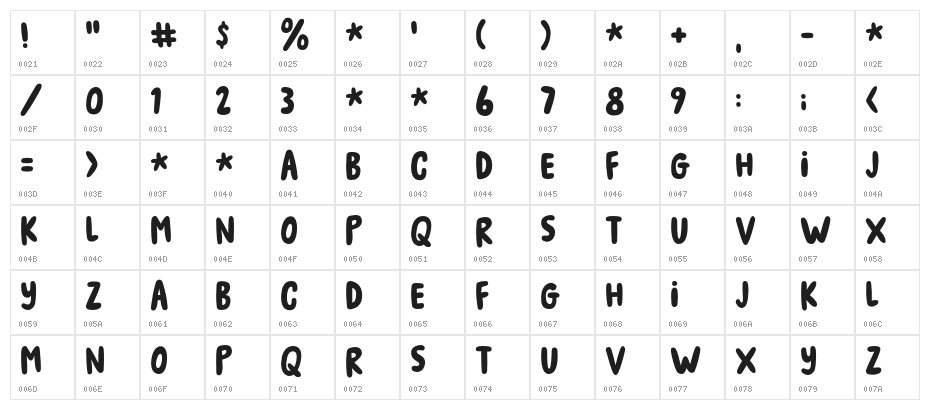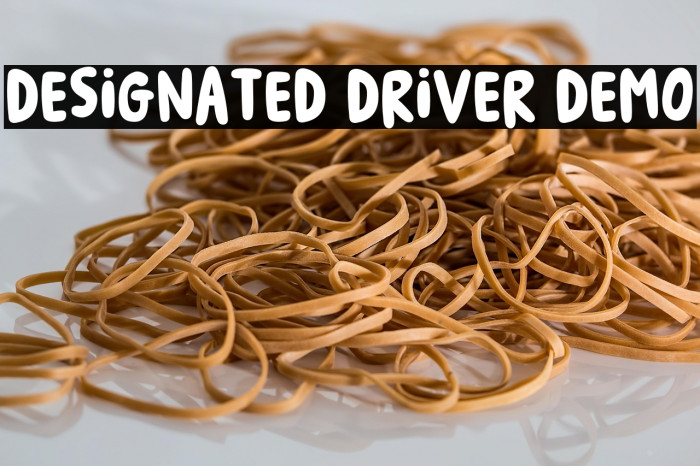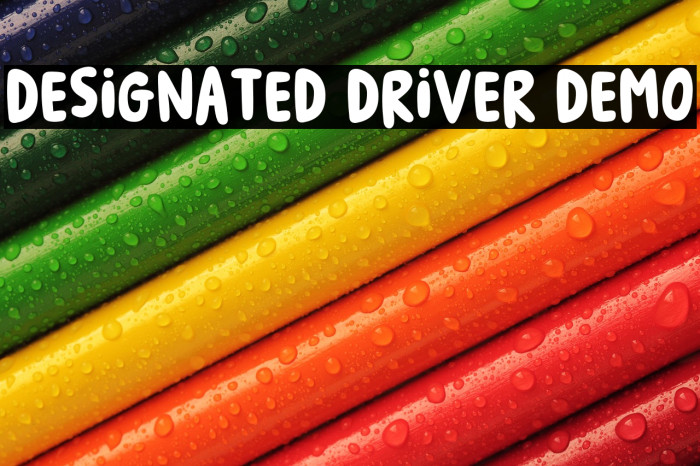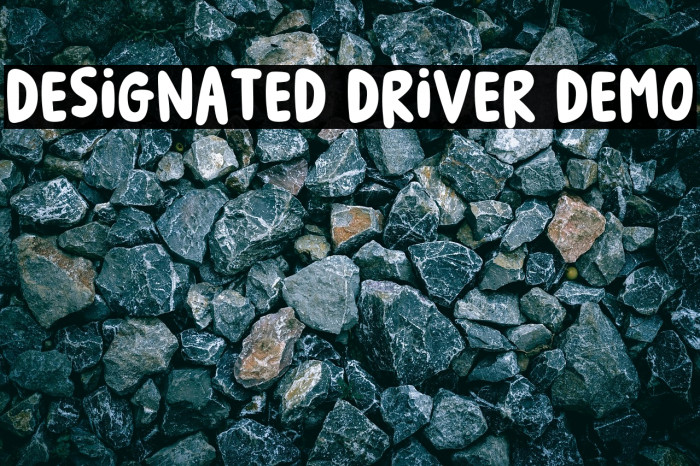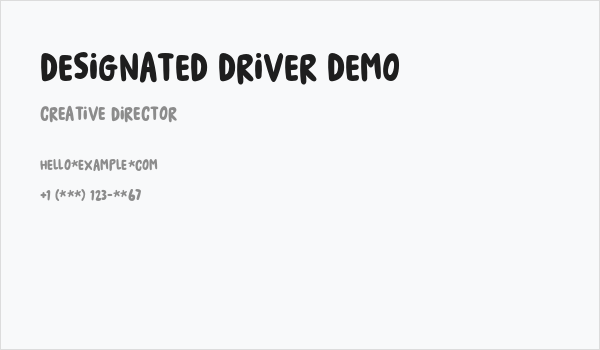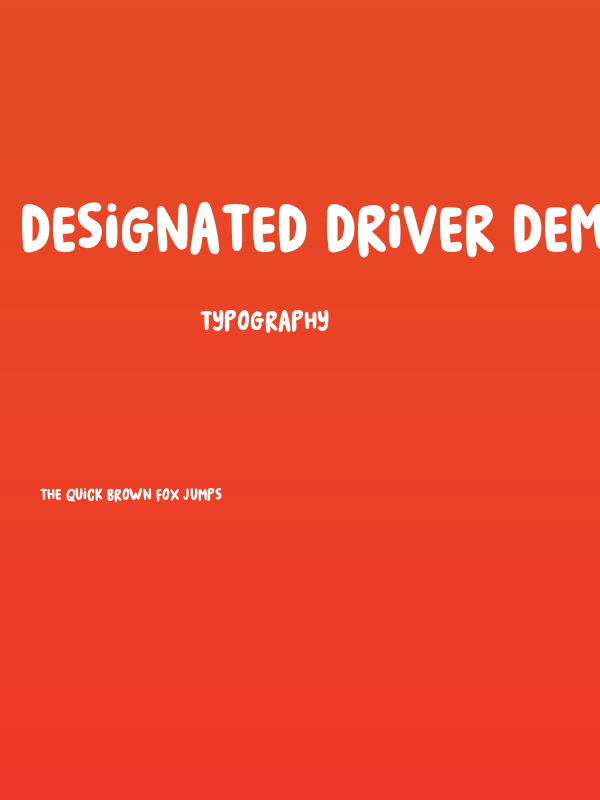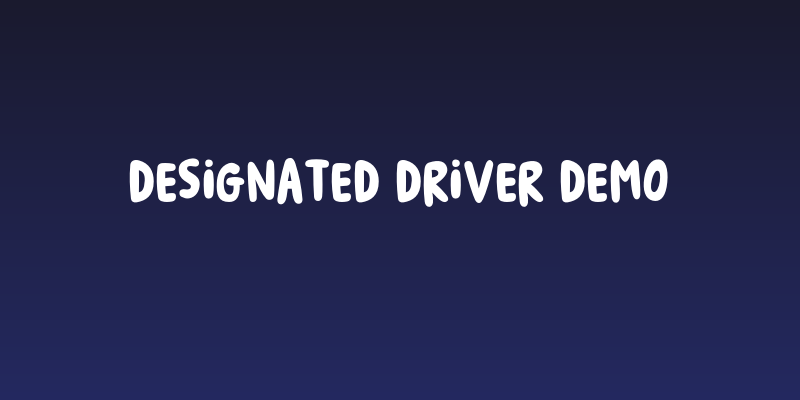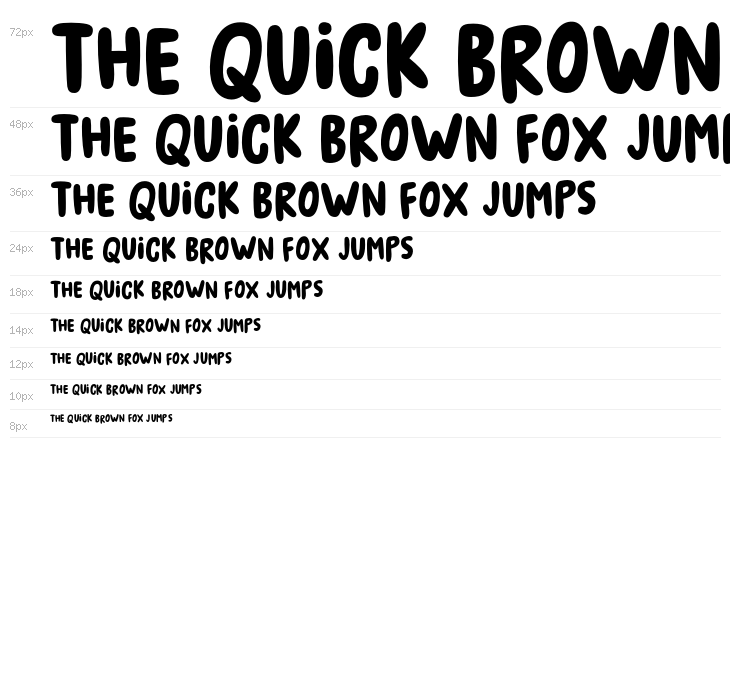
Designated Driver DEMO Font
This font features a playful and bold style with rounded edges and a hand-drawn appearance. The characters are thick and uniform, providing a sense of friendliness and approachability. The uppercase and lowercase letters maintain a consistent style, with a slightly exaggerated width that enhances readability. The numerals and special characters follow the same design principles, ensuring a cohesive look across all text. The overall aesthetic is casual and informal, making it suitable for projects that require a fun and engaging visual element.
| Width | Expanded |
| Overall Style | Casual |
| Proposed Projects | Ideal for children's books, playful branding, casual invitations, and social media graphics. |